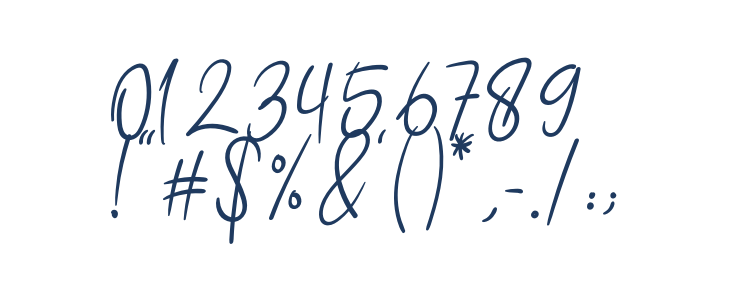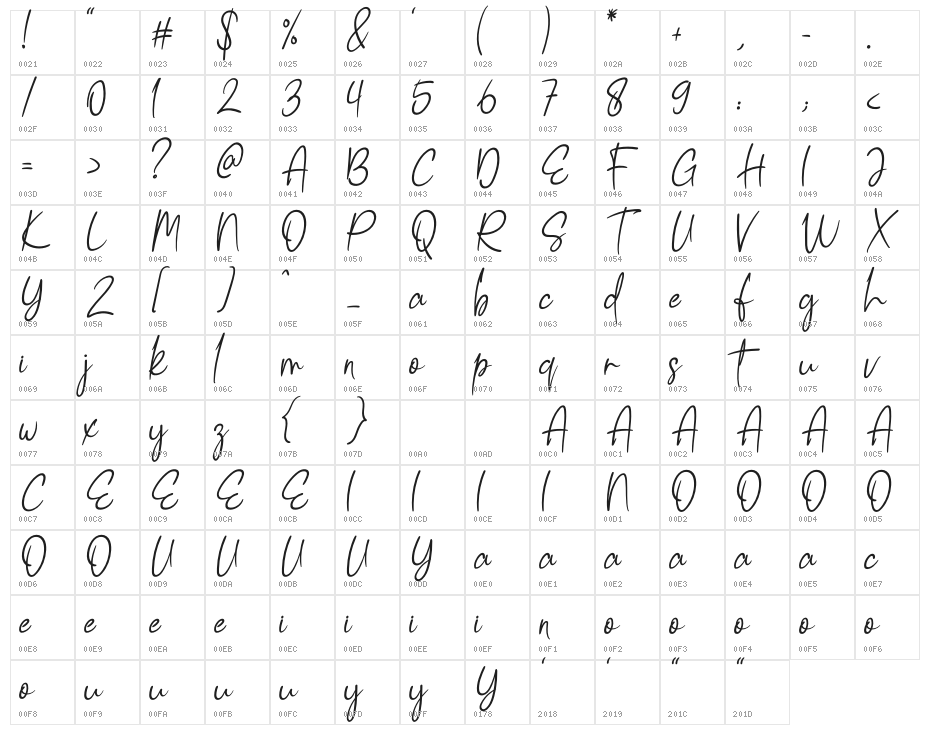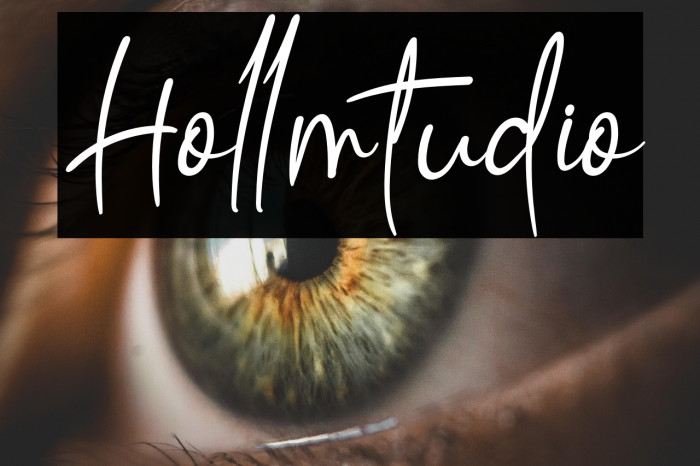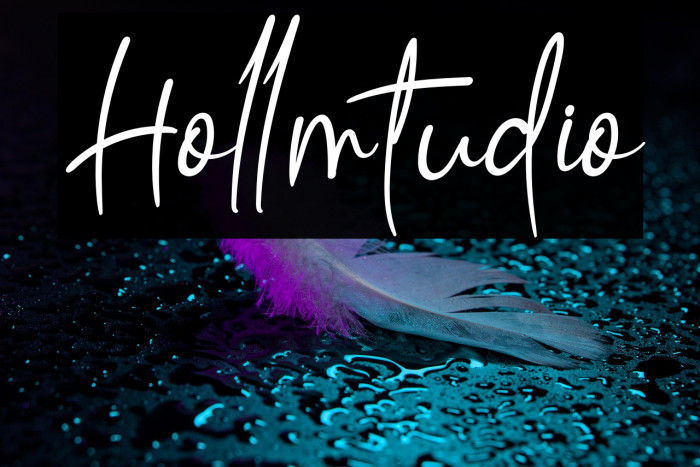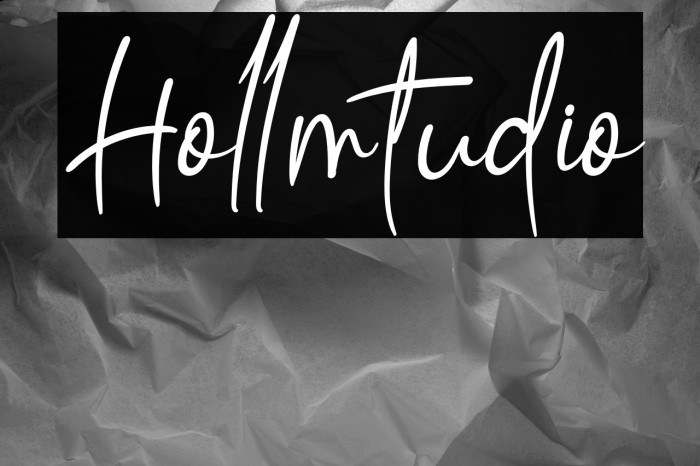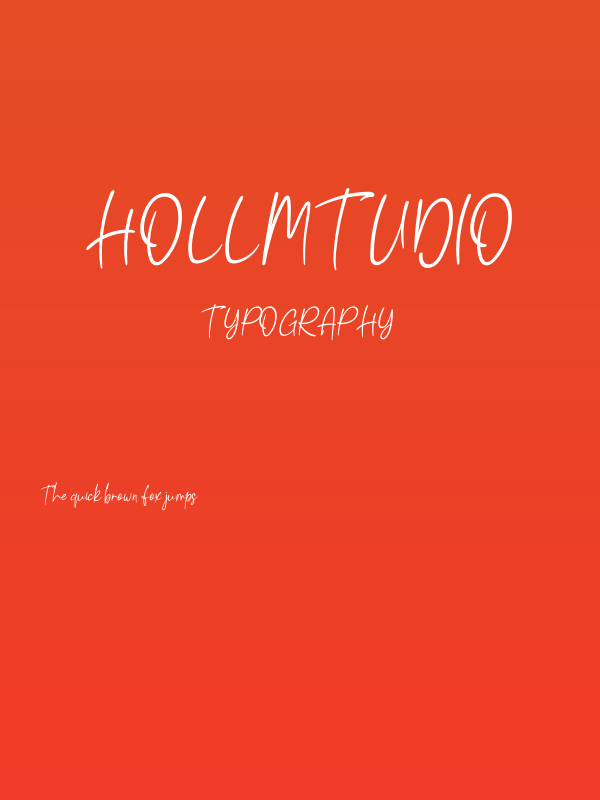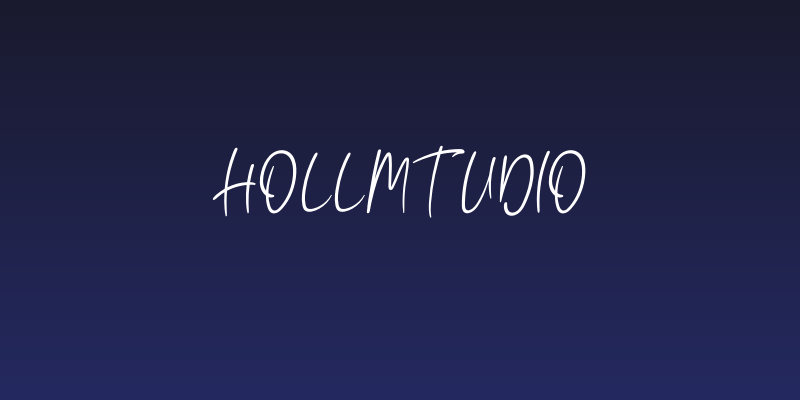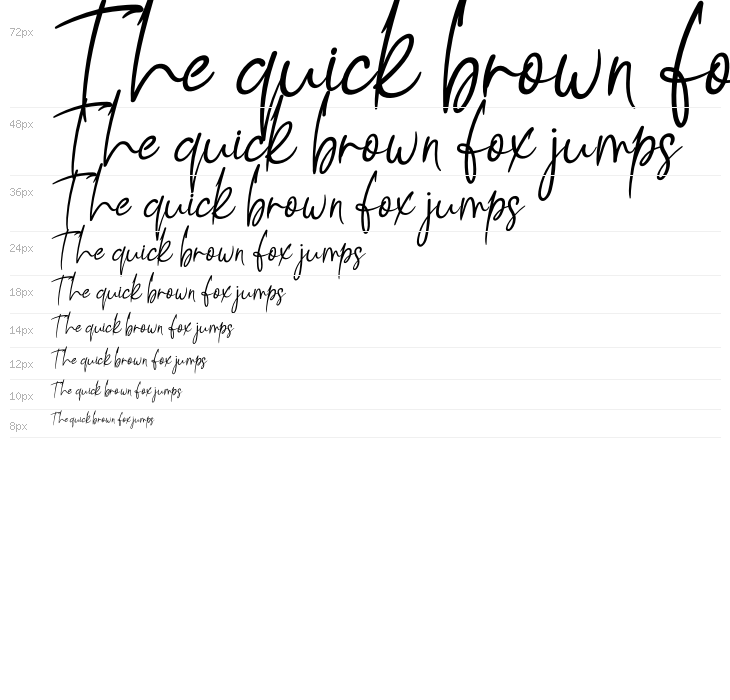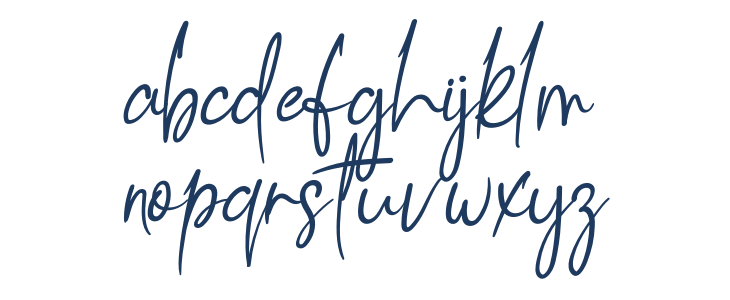
Hollmtudio Font
Hollmtudio Description
A lively and expressive handwritten font with a casual, flowing style. The characters are slightly slanted, giving a dynamic and personal touch.
| Overall Style | Casual, Personal |
| Use Case | Logos, Invitations, Personal notes |
| Proposed Projects | Greeting cards, personal branding, invitations. |